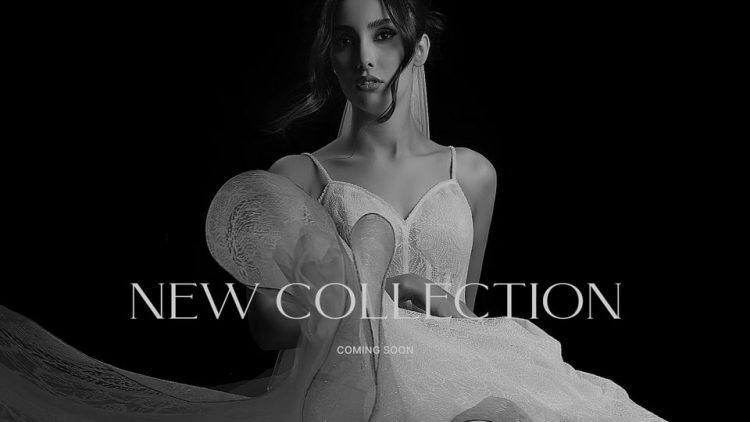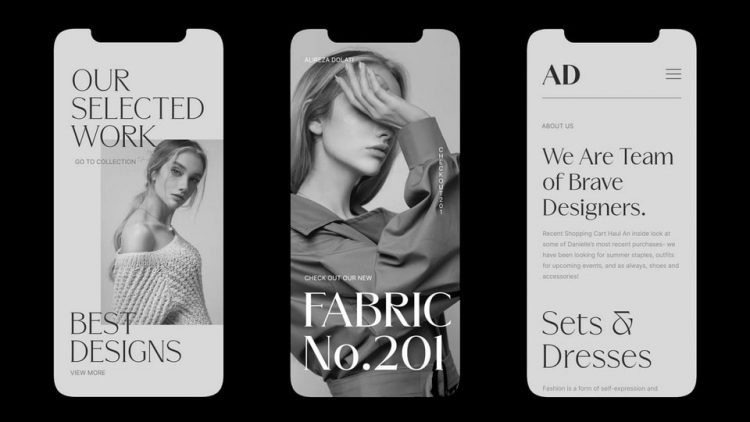
Merchant Serif Font is creative and modern serif typeface created by Rajesh Rajput with gorgeous and pleasant contrast and beautifully crafted characters makes it ideal for logos, titles, brands, editorial design, and magazines.
Merchant comes with 3 Widths (Condensed, Regular and Expanded), 9 Weights (Think to Black) and 27 Styles and is also available as a variable typeface.